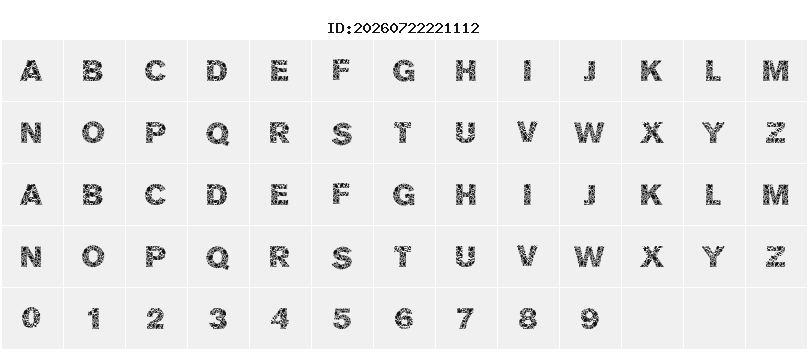
• Font Name: Mosaic leaf
• Full Font Name: Mosaic leaf
• Designer: Lukasz Kulakowski
• Manufacturer: Lukasz Kulakowski
About Mosaic leaf.ttf
Mosaic leaf.ttf is a modern, elegant sans-serif font designed for ultimate readability and visual harmony. Perfect for branding, headlines, web design, and print materials.